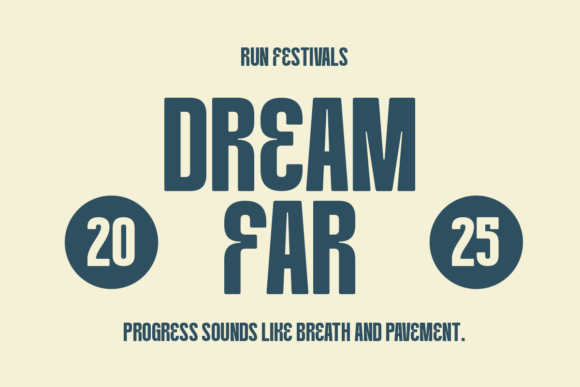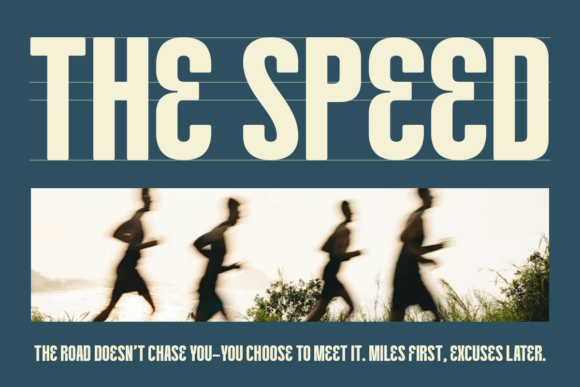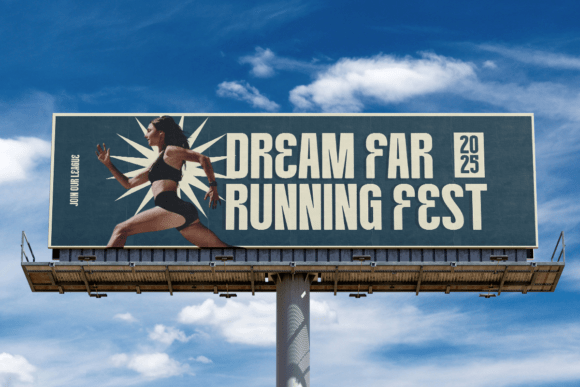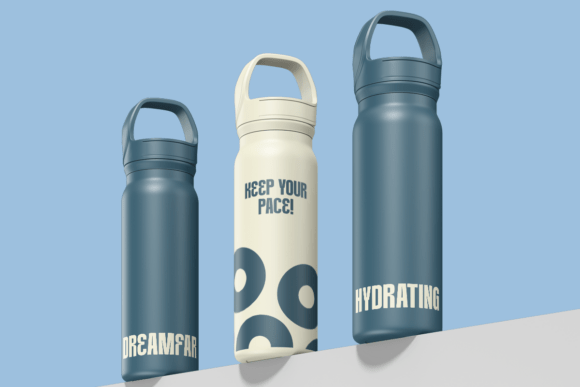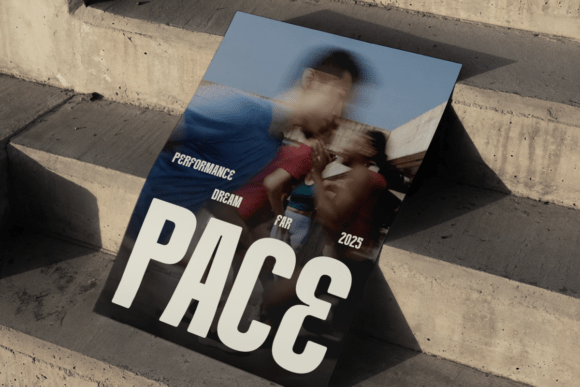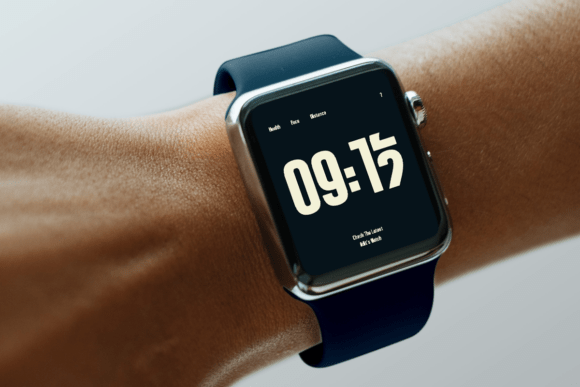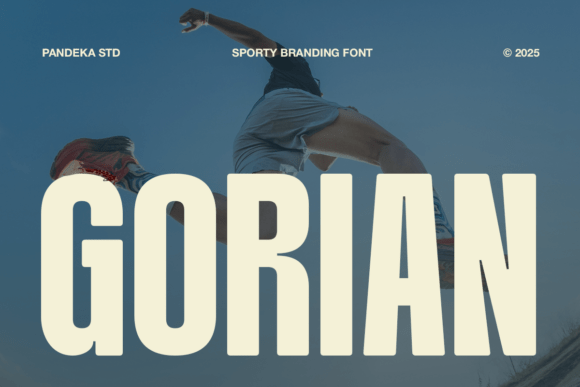
Unleash the Power of Gorian Font: Elevate Your Designs with a Bold and Dynamic Typeface
In the world of typography, fonts play a crucial role in conveying the tone and personality of a brand or design. For designers and crafters looking to make a bold statement, Gorian Font is an exceptional choice. Designed to capture the essence of speed, focus, and competitive energy, Gorian is a bold sport condensed font that is sure to elevate your designs to the next level.
Key Features of Gorian Font
Gorian Font boasts several key features that make it an ideal choice for designers seeking a dynamic and powerful typeface. Its tall proportions and tight spacing create a strong vertical presence that exudes confidence and intensity. The clean and modern letterforms ensure clarity and legibility, making it perfect for high-impact headlines and athletic branding.
Some of the key features of Gorian Font include:
• Tall Proportions: Gorian’s tall proportions create a sense of grandeur and monumentality, making it perfect for posters, billboards, and social media graphics.
• Tight Spacing: The tight spacing between letters creates a sense of urgency and energy, ideal for sports events and fitness campaigns.
• Clean and Modern Letterforms: Gorian’s clean and modern letterforms ensure clarity and legibility, even at smaller sizes.
• Single Regular Style: Gorian features a single Regular style, making it straightforward, versatile, and easy to use.
Perfect for Athletic Branding and Sports Designs
Gorian Font is specifically designed for athletic branding and sports designs. Its bold and dynamic appearance makes it perfect for:
• Sports Events: Use Gorian to create eye-catching posters, flyers, and social media graphics for sports events.
• Running and Fitness Campaigns: Gorian’s energetic and motivational vibe makes it ideal for running and fitness campaigns.
• Athletic Apparel Branding: Create bold and striking athletic apparel branding with Gorian’s confident and dynamic typeface.
• Posters and Billboards: Gorian’s tall proportions and tight spacing make it perfect for posters and billboards.
Versatility Across Print and Digital Designs
Gorian Font is designed to be versatile and adaptable across both print and digital designs. Its clean and modern letterforms ensure clarity and legibility on various backgrounds and mediums. Whether you’re designing a social media graphic, a poster, or a packaging label, Gorian Font is an excellent choice.
Why Choose Gorian Font?
So, why choose Gorian Font for your designs? Here are a few reasons:
• Unique and Bold Appearance: Gorian’s bold and dynamic appearance sets it apart from other fonts.
• High-Impact Headlines: Gorian is perfect for creating high-impact headlines that grab attention.
• Easy to Use: Gorian features a single Regular style, making it easy to use and straightforward.
• Professional Sports Aesthetic: Gorian maintains a bold, professional sports aesthetic across both print and digital designs.
In conclusion, Gorian Font is an exceptional choice for designers and crafters looking to add a bold and dynamic touch to their designs. With its tall proportions, tight spacing, and clean letterforms, Gorian is perfect for athletic branding, sports designs, and high-impact headlines. Its versatility across print and digital designs makes it an excellent addition to any designer’s toolkit.